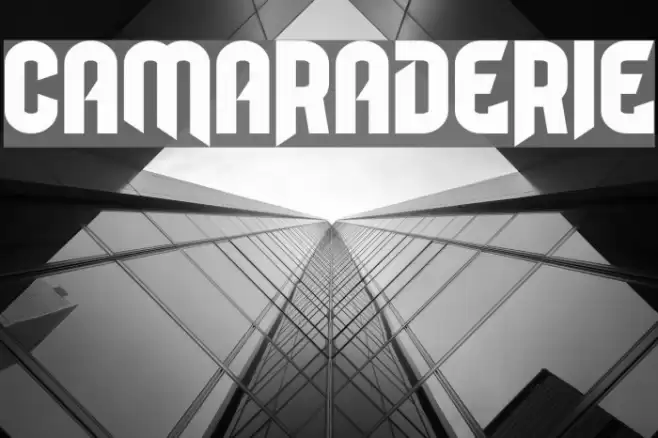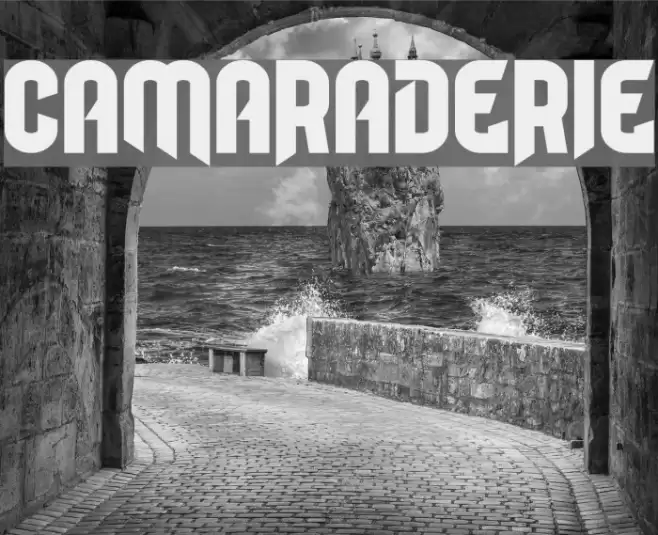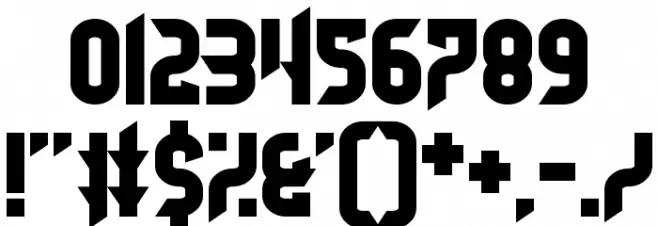
Camaraderie Font
Camaraderie Description
This font features a bold and striking design with a geometric and angular style. The characters are crafted with sharp edges and a strong presence, making it ideal for attention-grabbing headlines and logos. The uppercase and lowercase letters maintain a consistent style, with a unique flair in the special characters that adds a touch of creativity. The numbers are equally bold, ensuring they stand out in any composition. This font's design is reminiscent of modern architectural elements, providing a sense of strength and stability.
A bold, geometric font with sharp edges and a modern style from Uncategorized fonts.